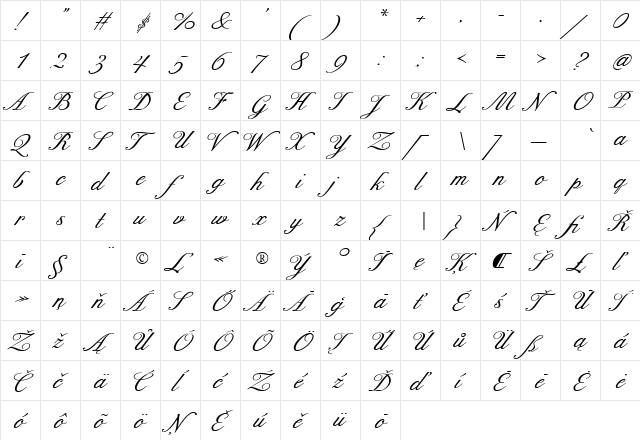
ExcelsiorScriptTextCE Regular
Design Context for ExcelsiorScriptTextCE Typeface
ExcelsiorScriptTextCE brings a calligraphic fluidity to the page — its connecting strokes and expressive curves give it an unmistakably human quality.
Font Pairing: Combine ExcelsiorScriptTextCE with a simple geometric sans for maximum contrast — the tension between flowing curves and clean structure is a classic typographic pairing.
Pro Tip: Pair ExcelsiorScriptTextCE with a clean sans-serif for supporting text. The contrast between fluid script and geometric structure creates an elegant typographic hierarchy.